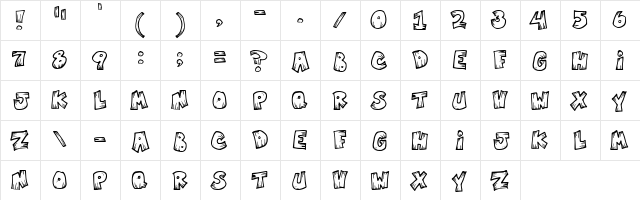
MisterVampire Regular Font Preview
MisterVampire Regular
Design Context for MisterVampire Typeface
MisterVampire is a composed and adaptable typeface that performs quietly and consistently across a wide range of design contexts.